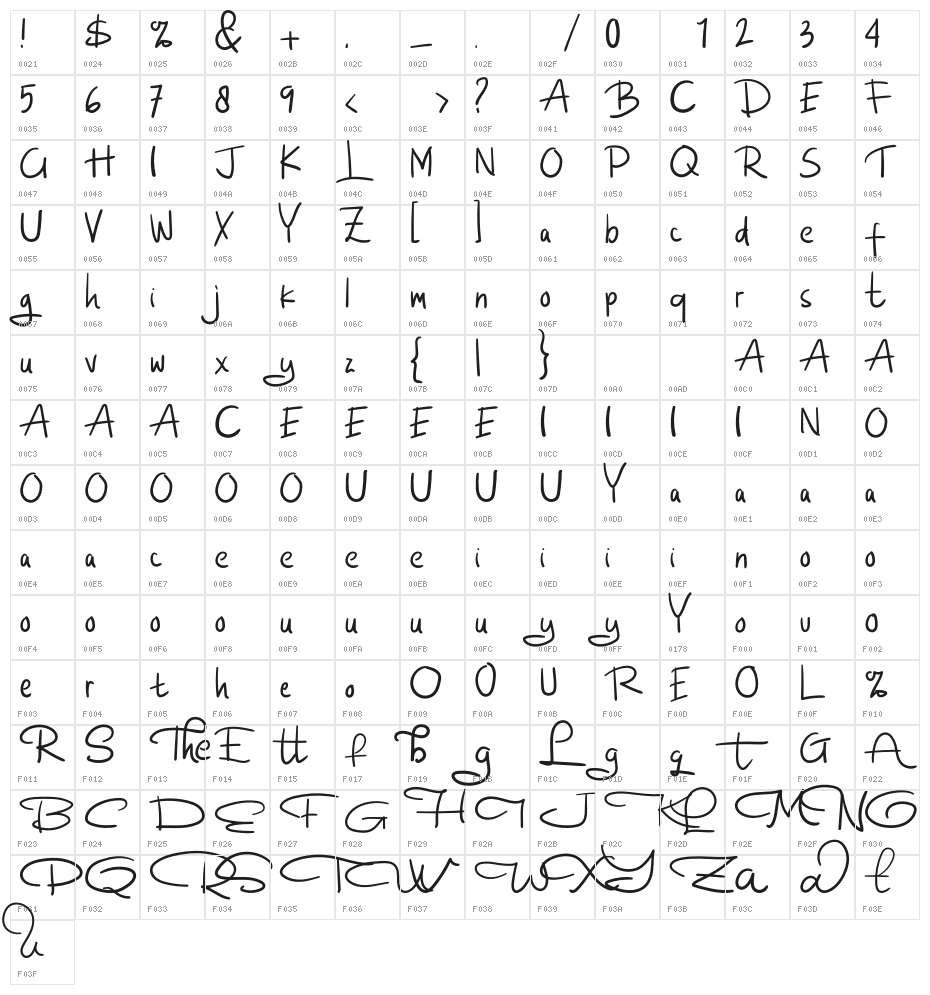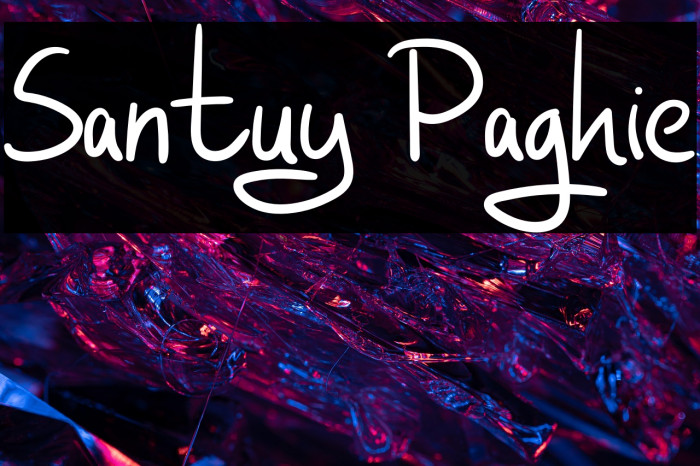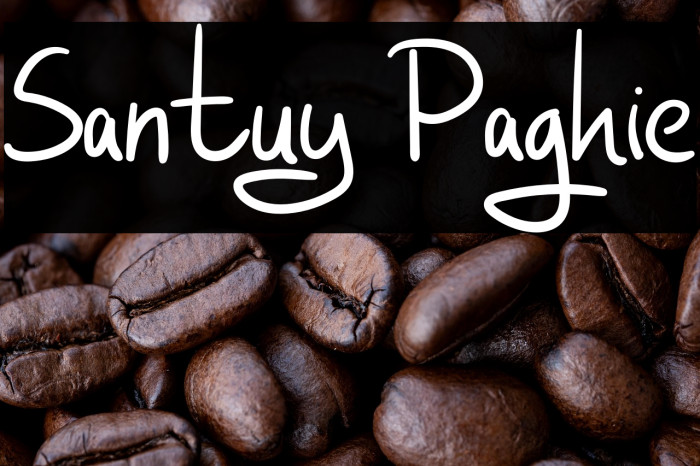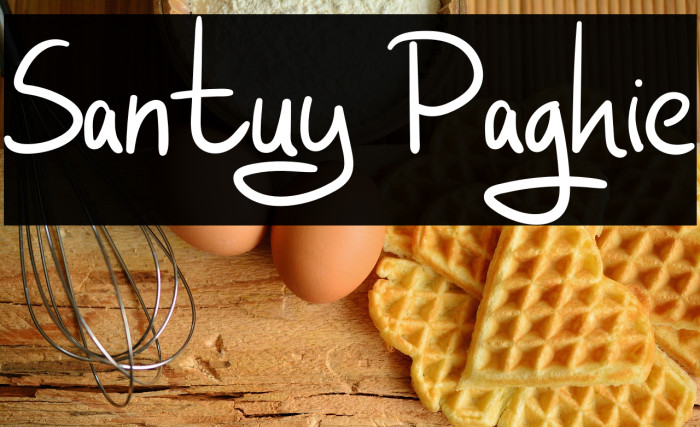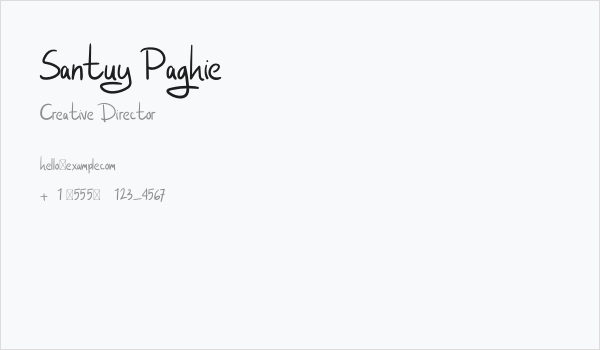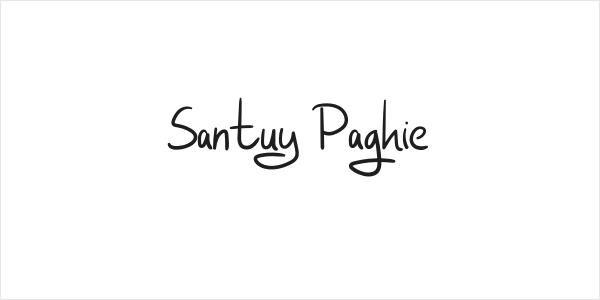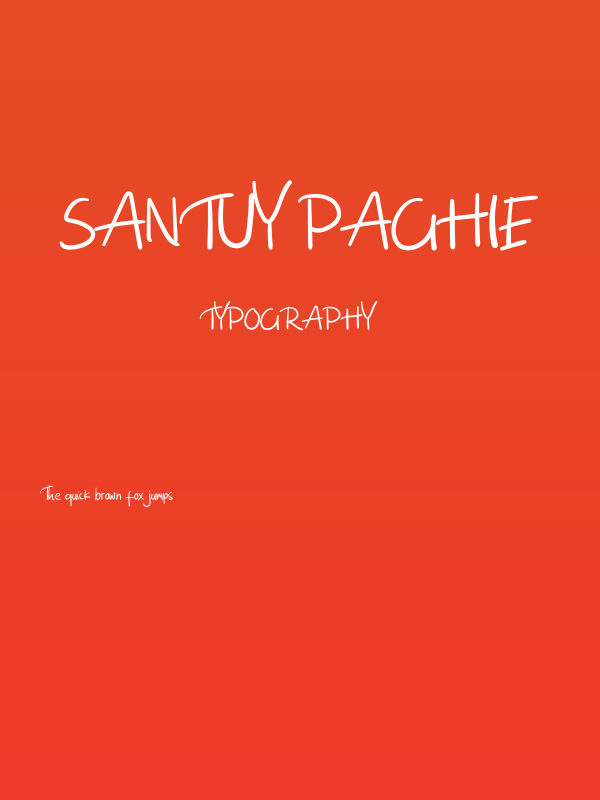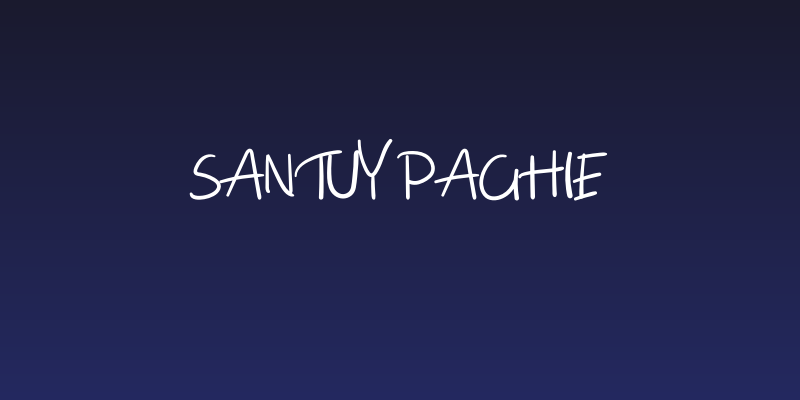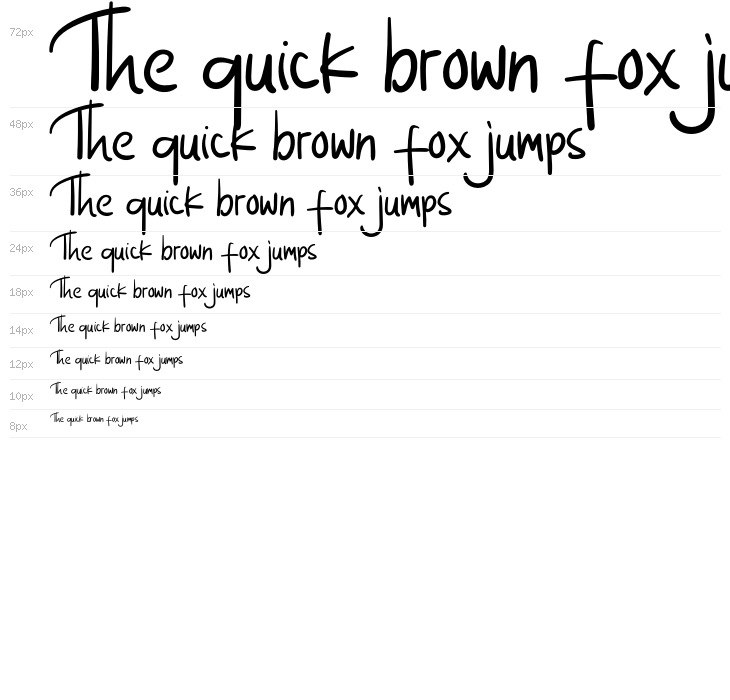
Santuy Paghie Font
Santuy Paghie Description
This font features a playful and casual handwritten style, characterized by its fluid and slightly irregular strokes. The uppercase letters are tall and narrow, with a whimsical touch that adds personality. The lowercase letters maintain a consistent flow, with some characters like 'g' and 'j' having distinctive loops. Numbers are bold and clear, ensuring readability. Special characters are creatively designed, matching the overall playful theme. This font exudes a sense of informality and creativity, making it suitable for projects that require a personal and approachable feel.